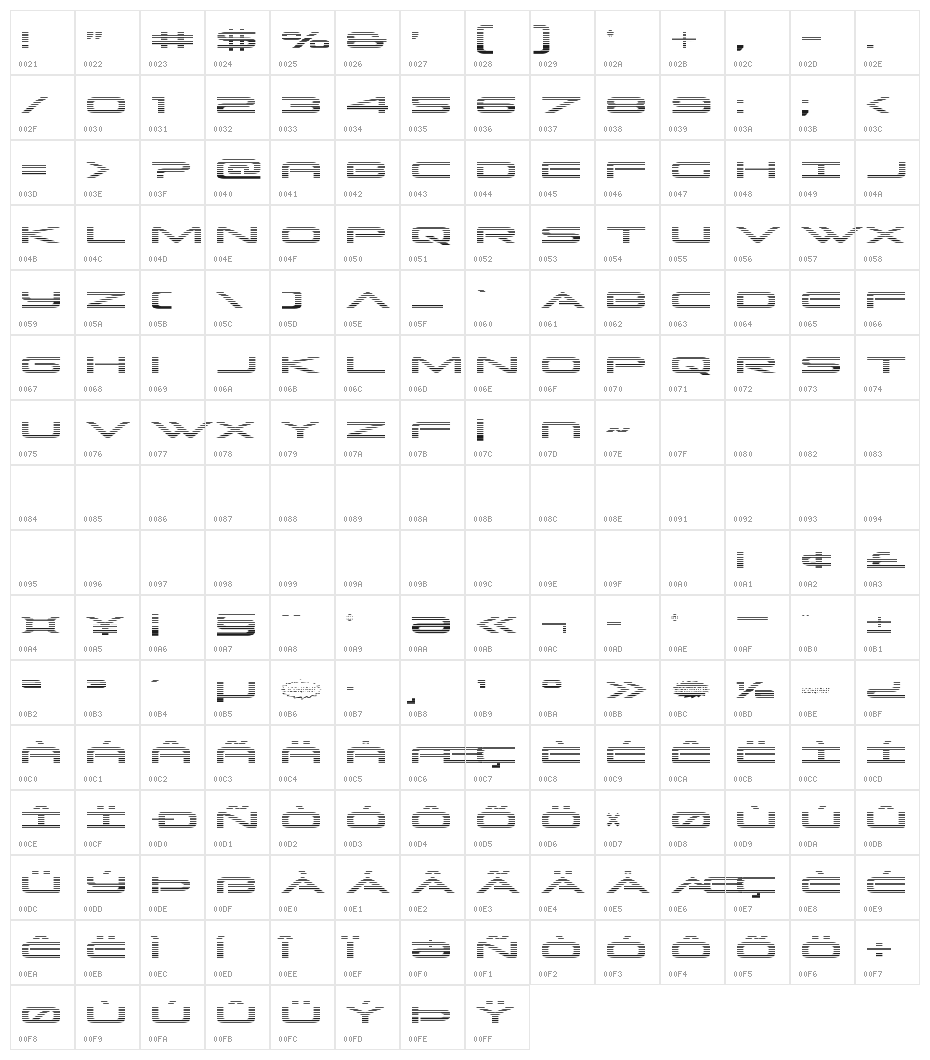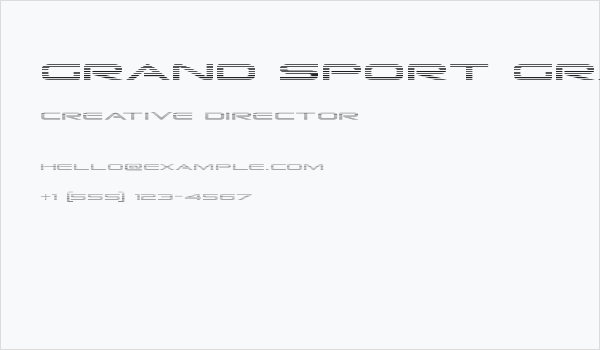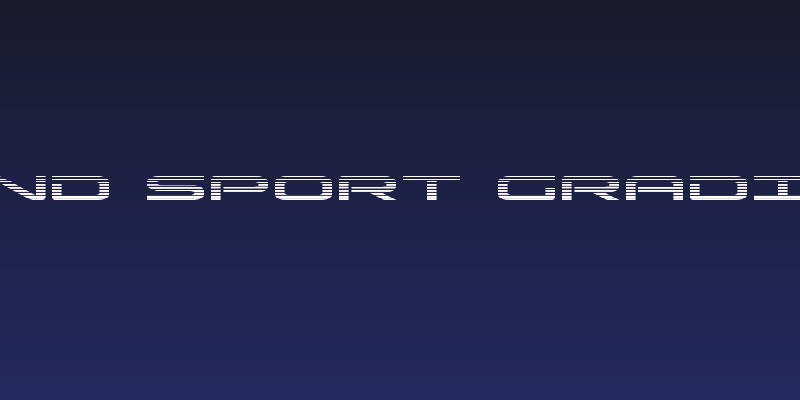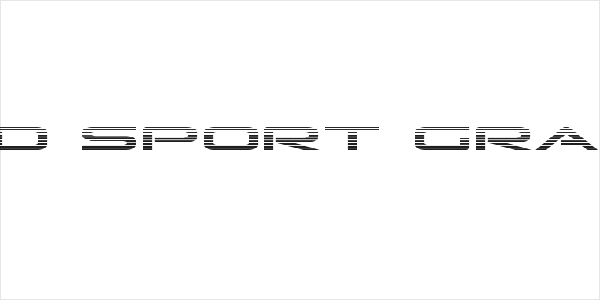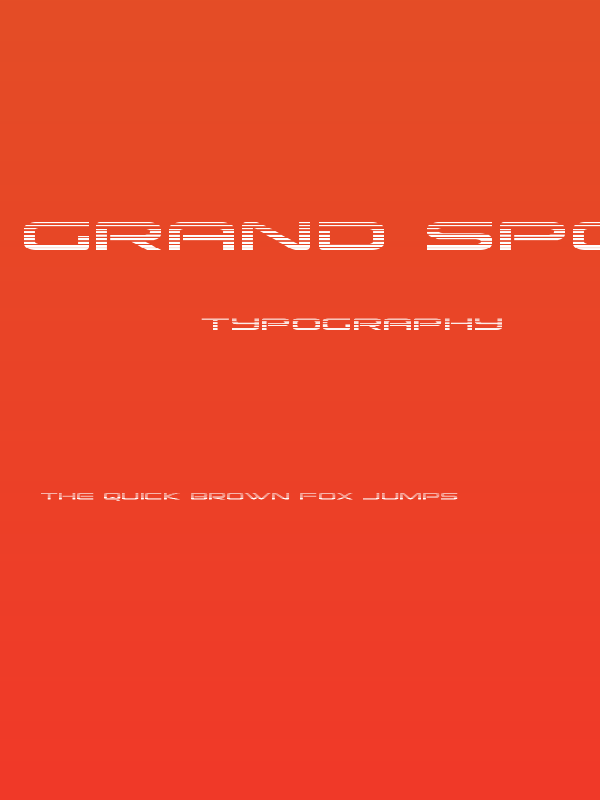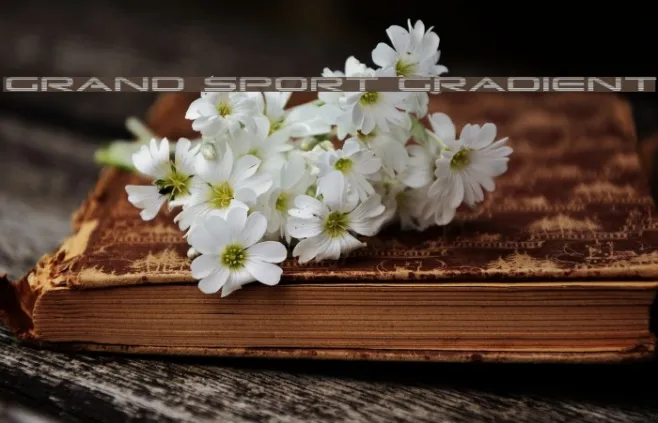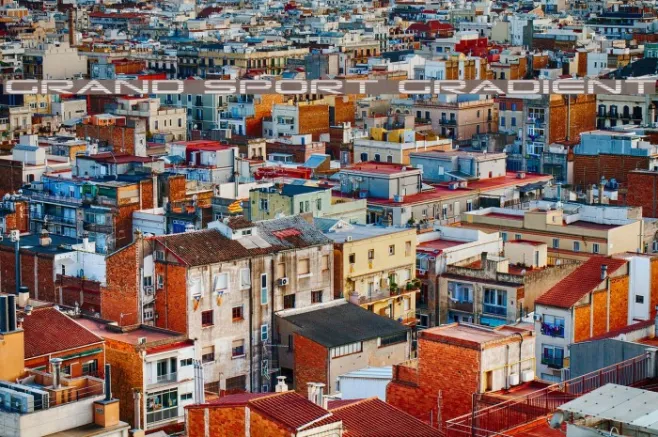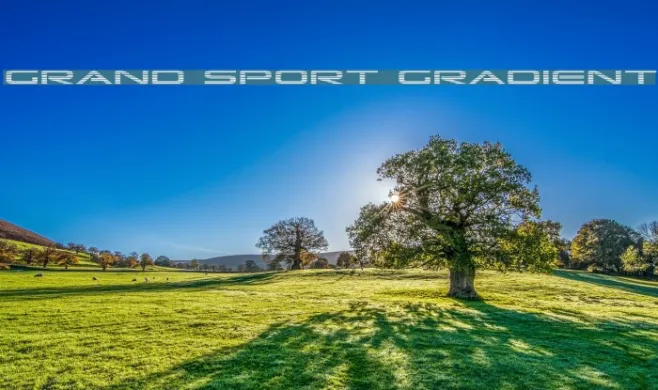
Grand Sport Gradient Font
Grand Sport Gradient Description
This font features a modern, futuristic design with a distinct gradient effect that gives it a dynamic and sporty appearance. The characters are constructed with horizontal lines that create a sense of movement and speed, making it ideal for projects that require a contemporary and energetic feel. The uppercase and lowercase letters maintain a consistent style, with sharp edges and a sleek form. The numerals and special characters are designed to match the overall aesthetic, ensuring uniformity across all text elements. This font is particularly suitable for use in automotive branding, sports team logos, and technology-related projects.
GRAND-SPORT-GRADIENT UPPERCASE
GRAND-SPORT-GRADIENT LOWERCASE
GRAND-SPORT-GRADIENT OTHER CHARS
| Use Case | Logos, Headlines |
| Proposed Projects | Ideal for automotive branding, sports team logos, and technology-related projects. |